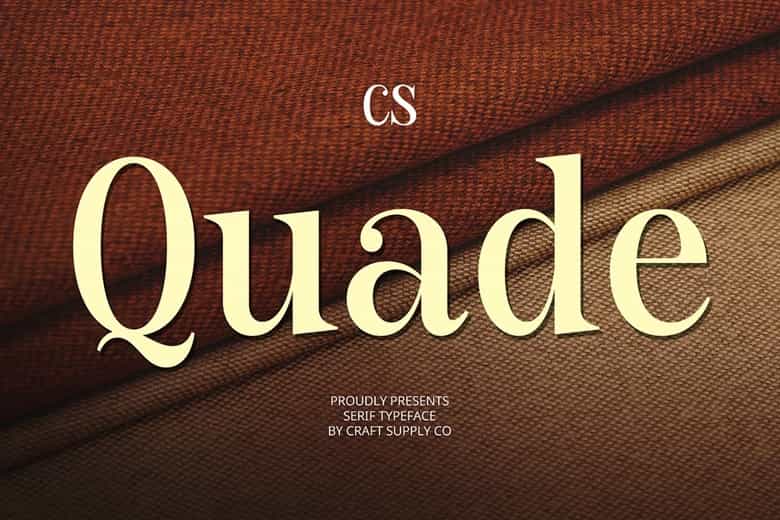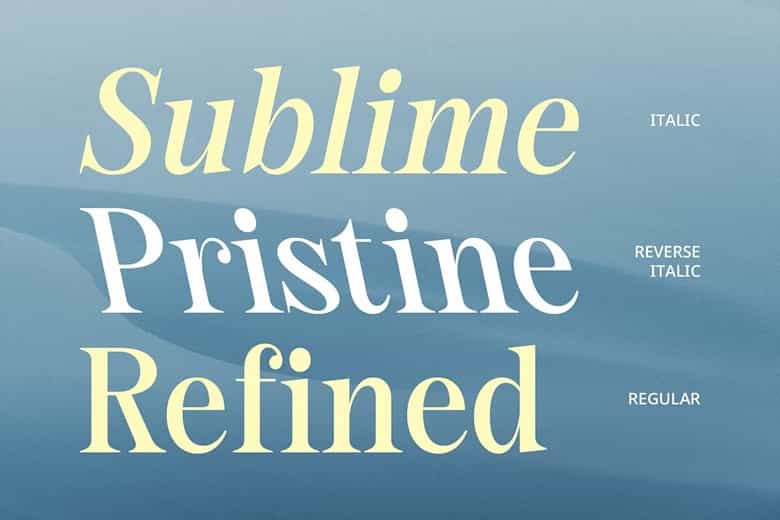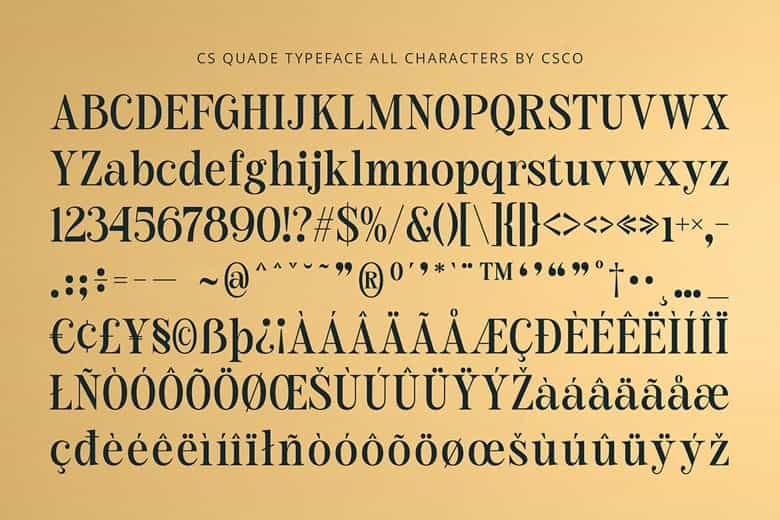
CS Quade is a modern serif typeface suitable for the aesthetic and charming context. Sleek, tall and graceful with a delicate, elegant and extended serif ending, it combines elegance of the old class and the laconic contemporary tendencies. One of the main advantages of this scheme is that it looks never out of date, but at the same time, it adds a touch of novelty; thus, it can be recommended for using in elite work.